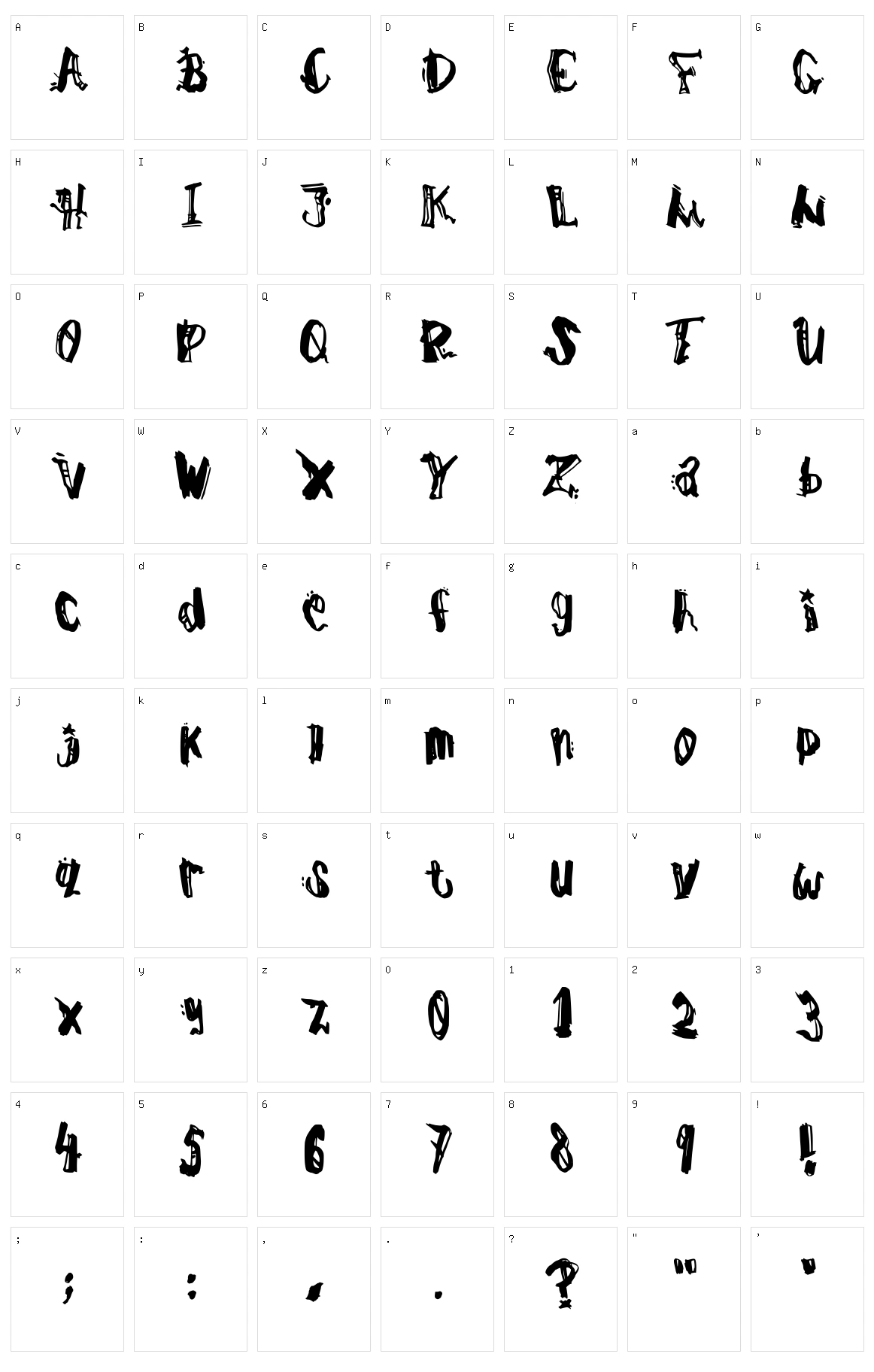
The free font Dadareism is carefully designed by Dare Husign, showcasing a thoughtful balance of creativity and usability and falls under the Trash font style. When you download the ZIP file, it contains only 36.52 KB of font files, making it lightweight and quick to download. Please review the license details below to understand permitted usage and distribution rights. If license information is not available, we recommend using this font for personal projects only or contacting the author directly for commercial usage permissions.